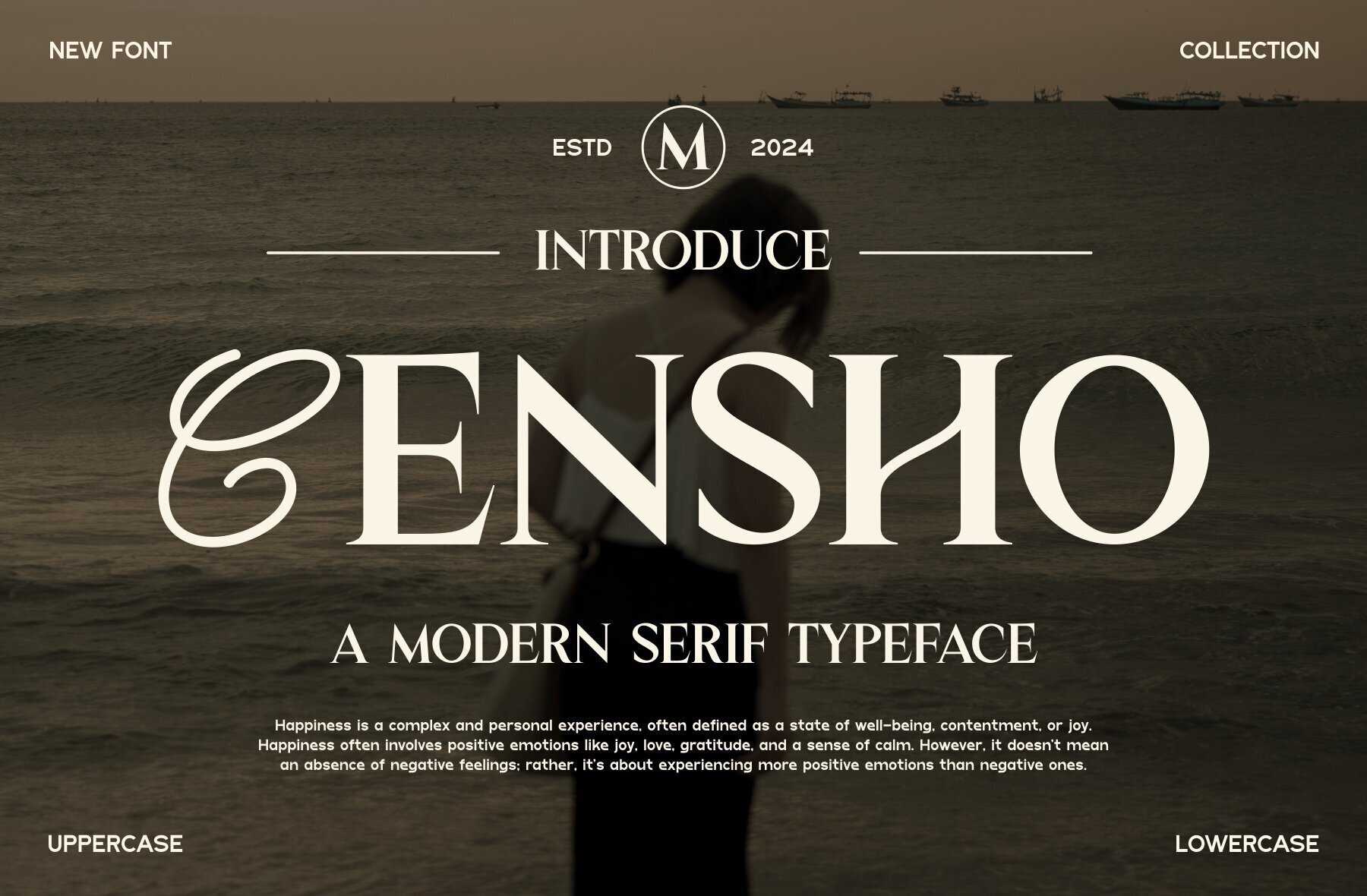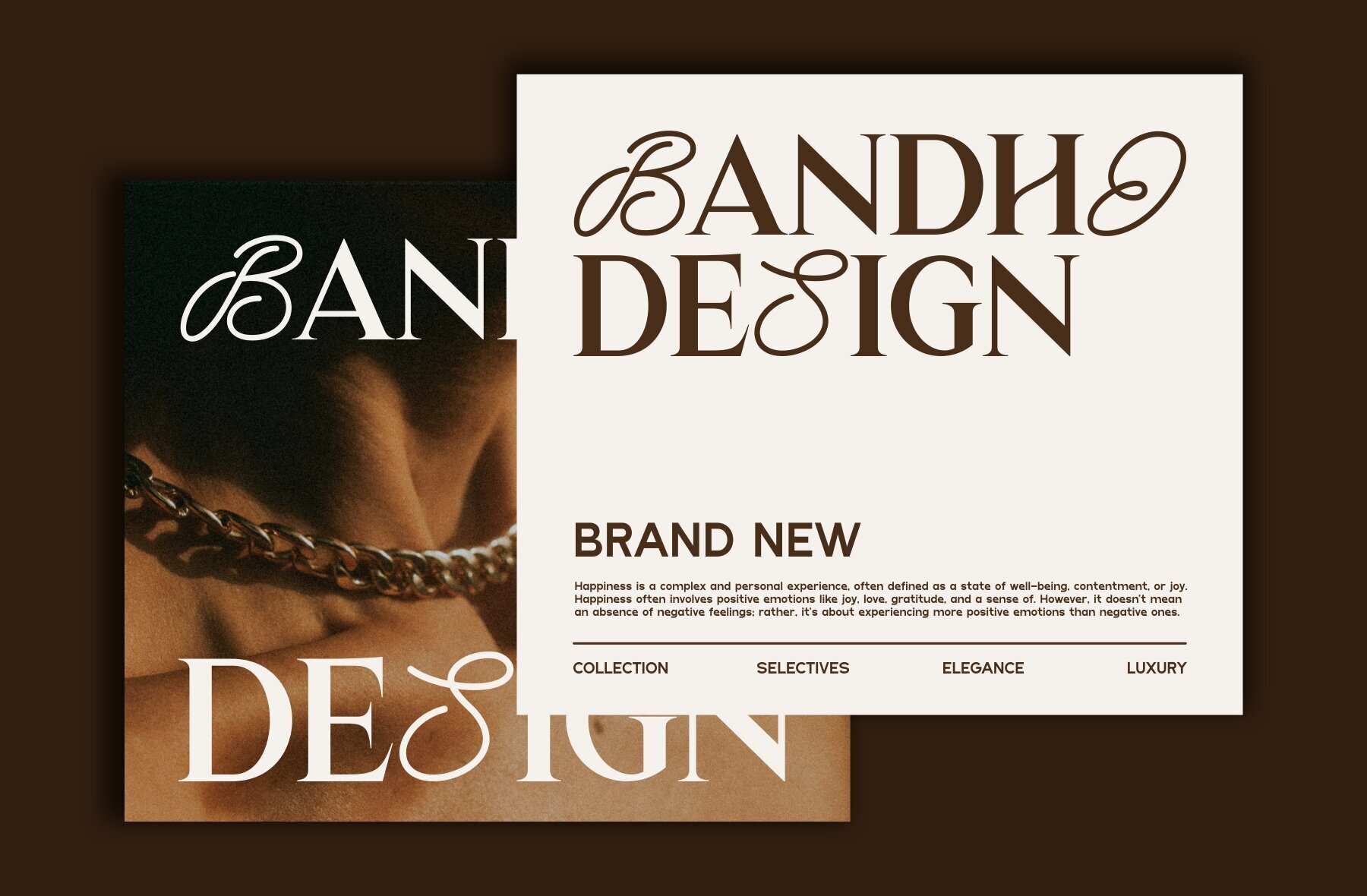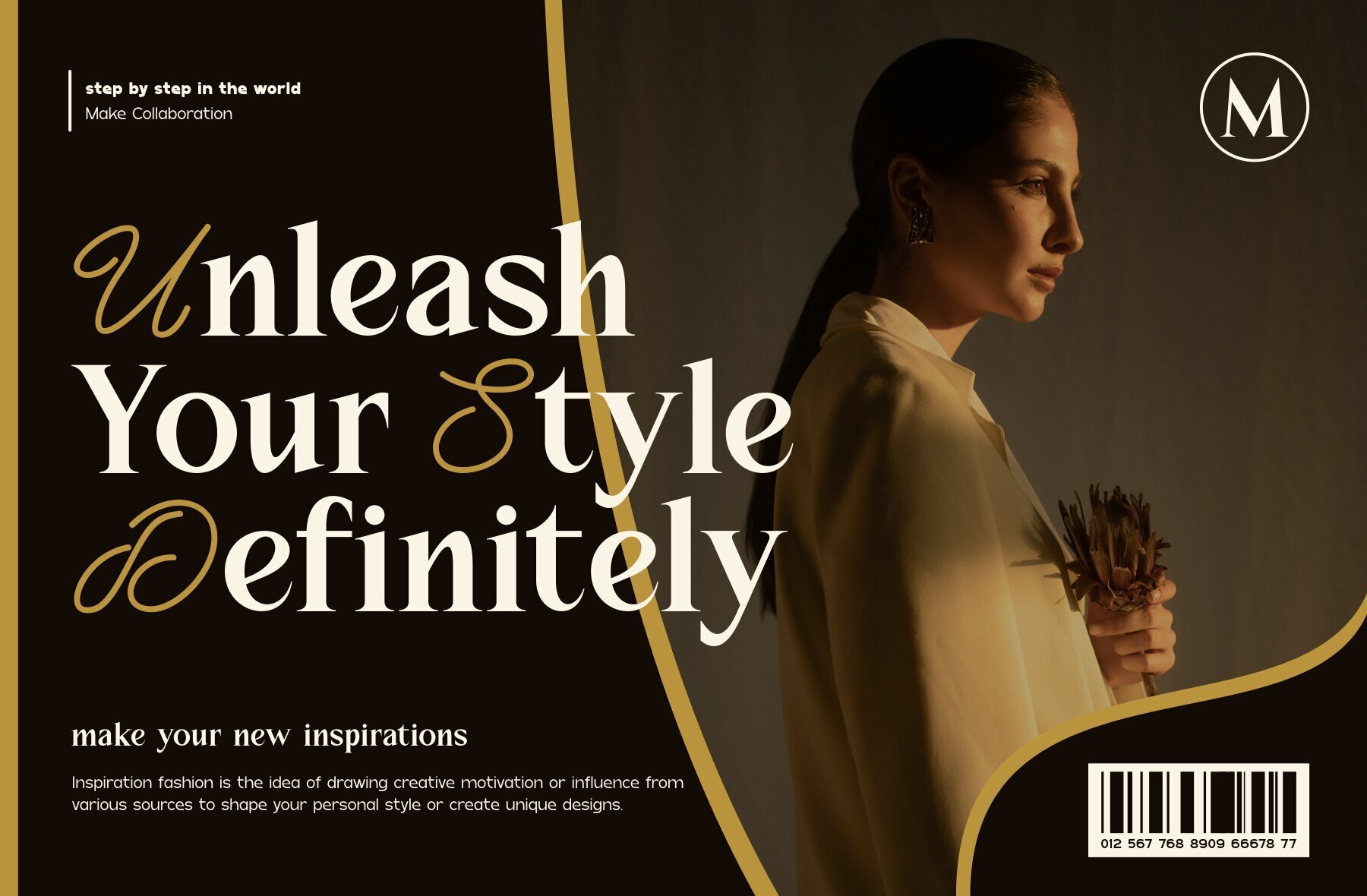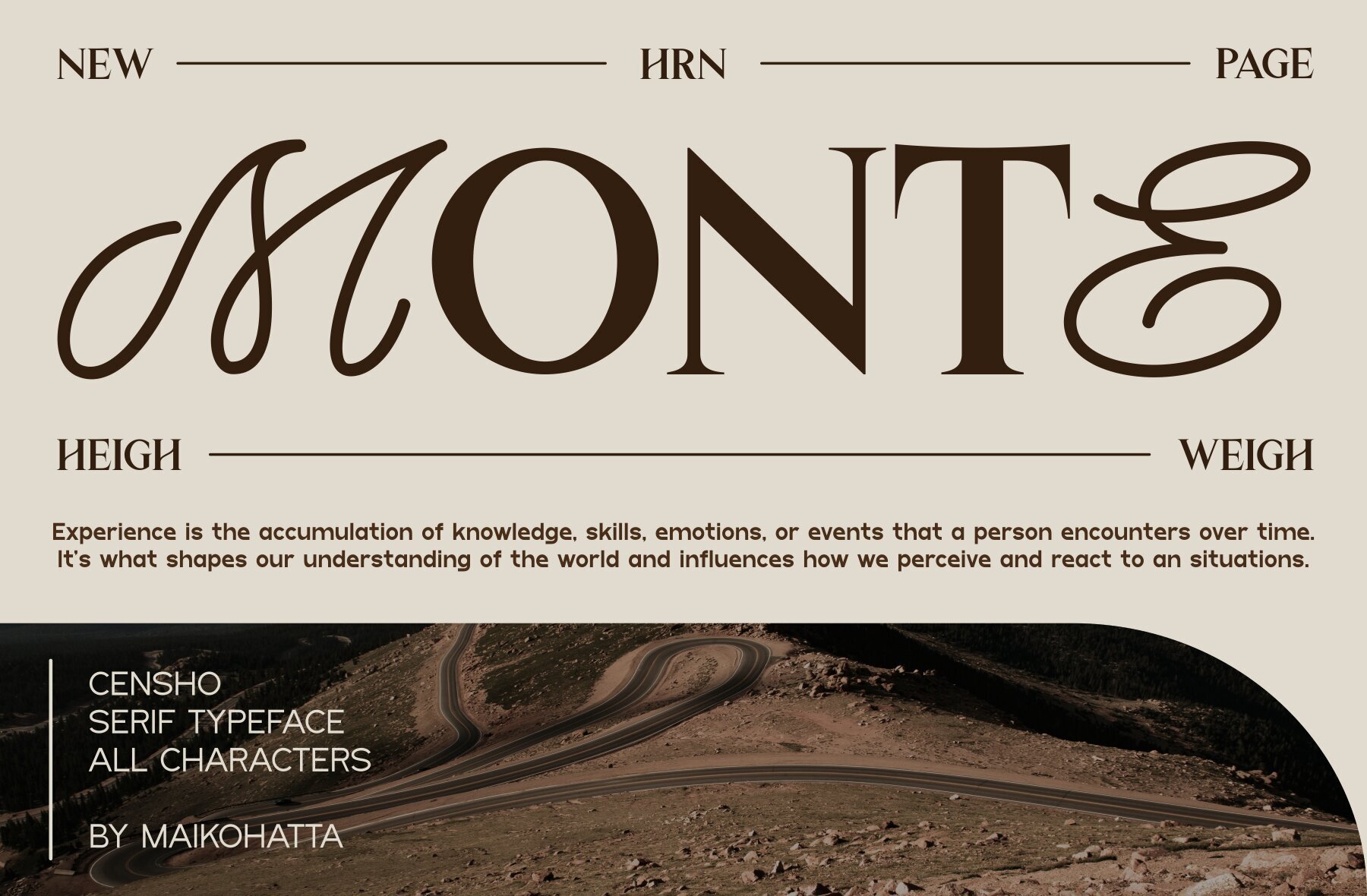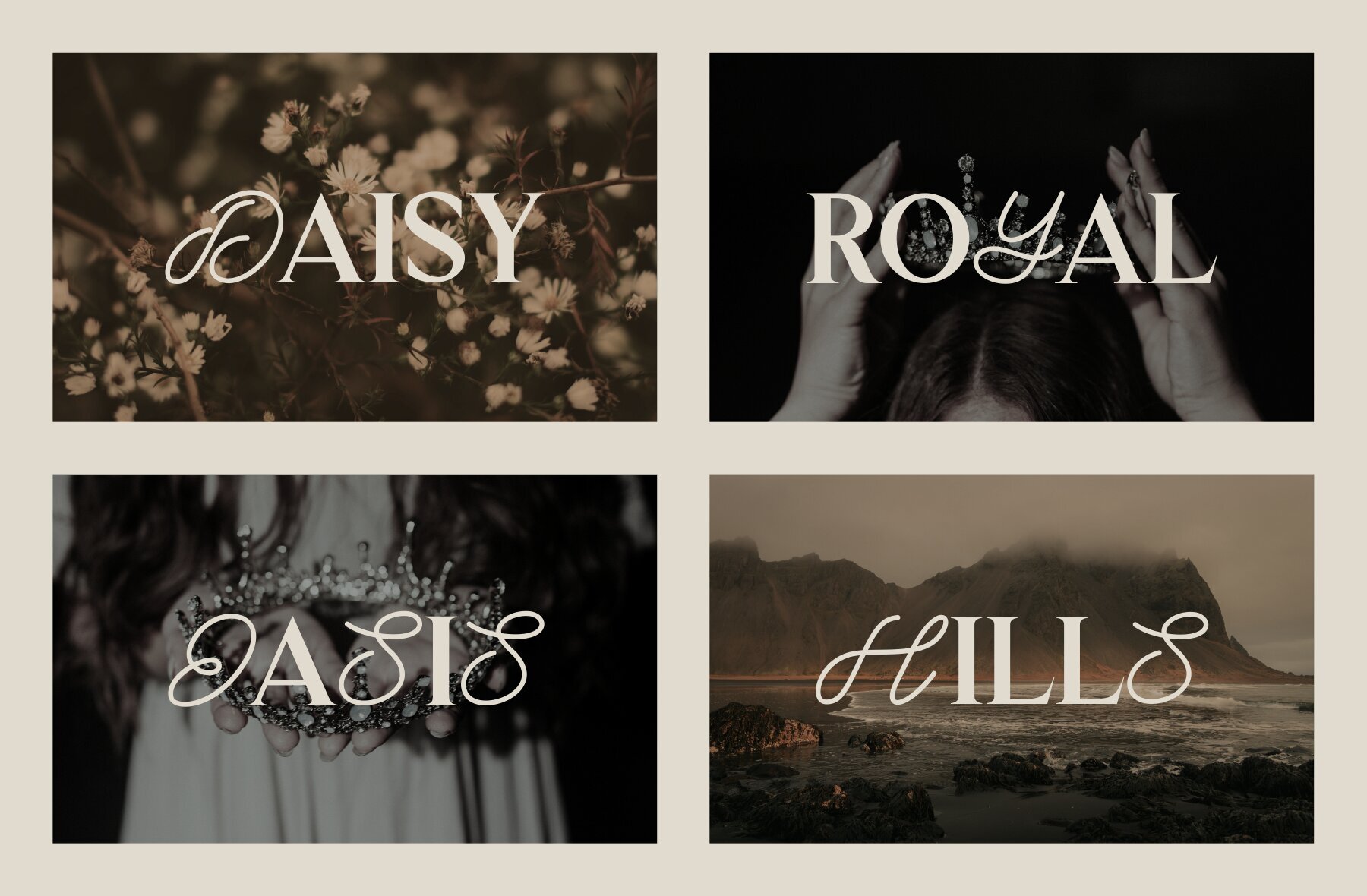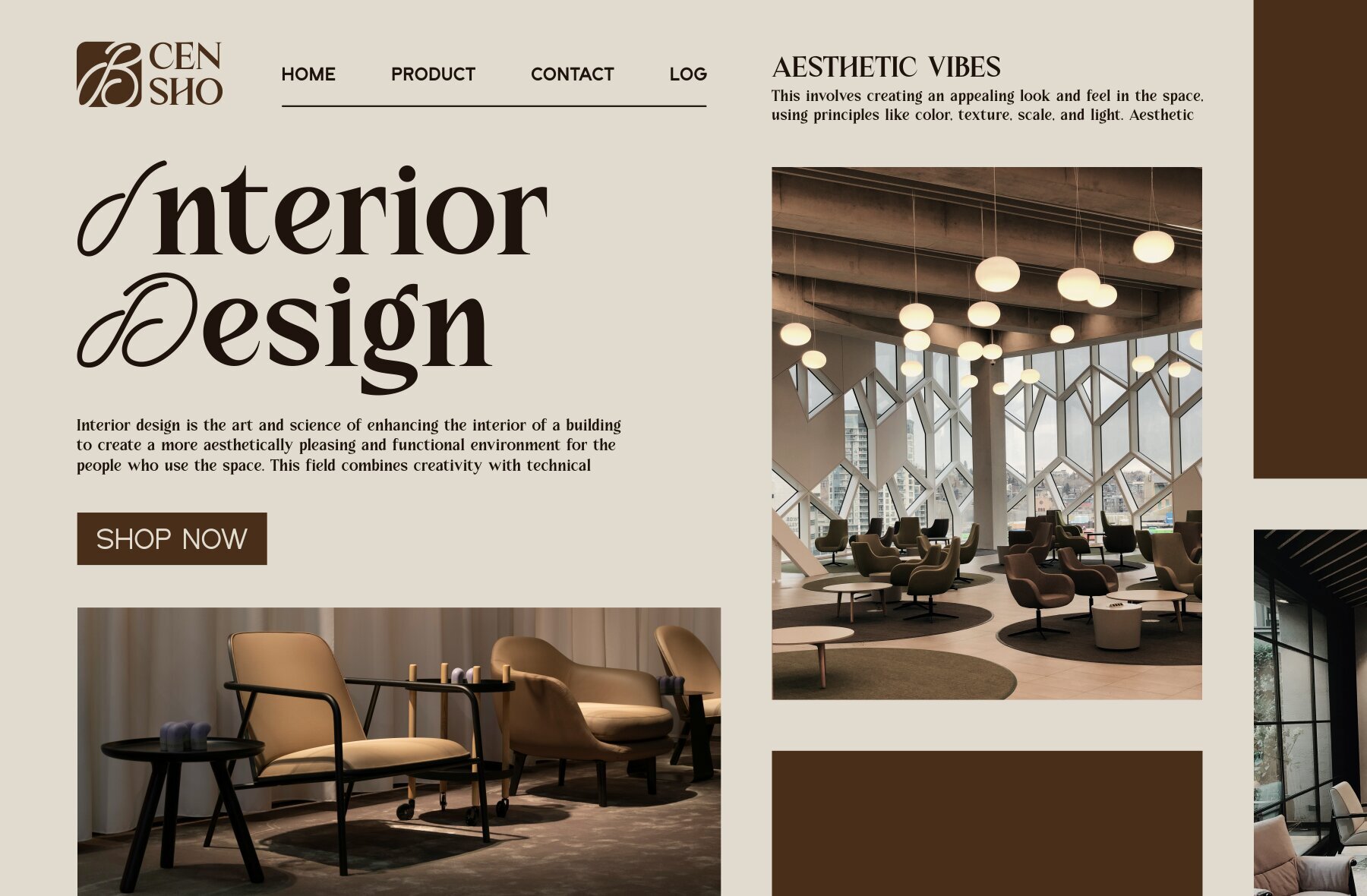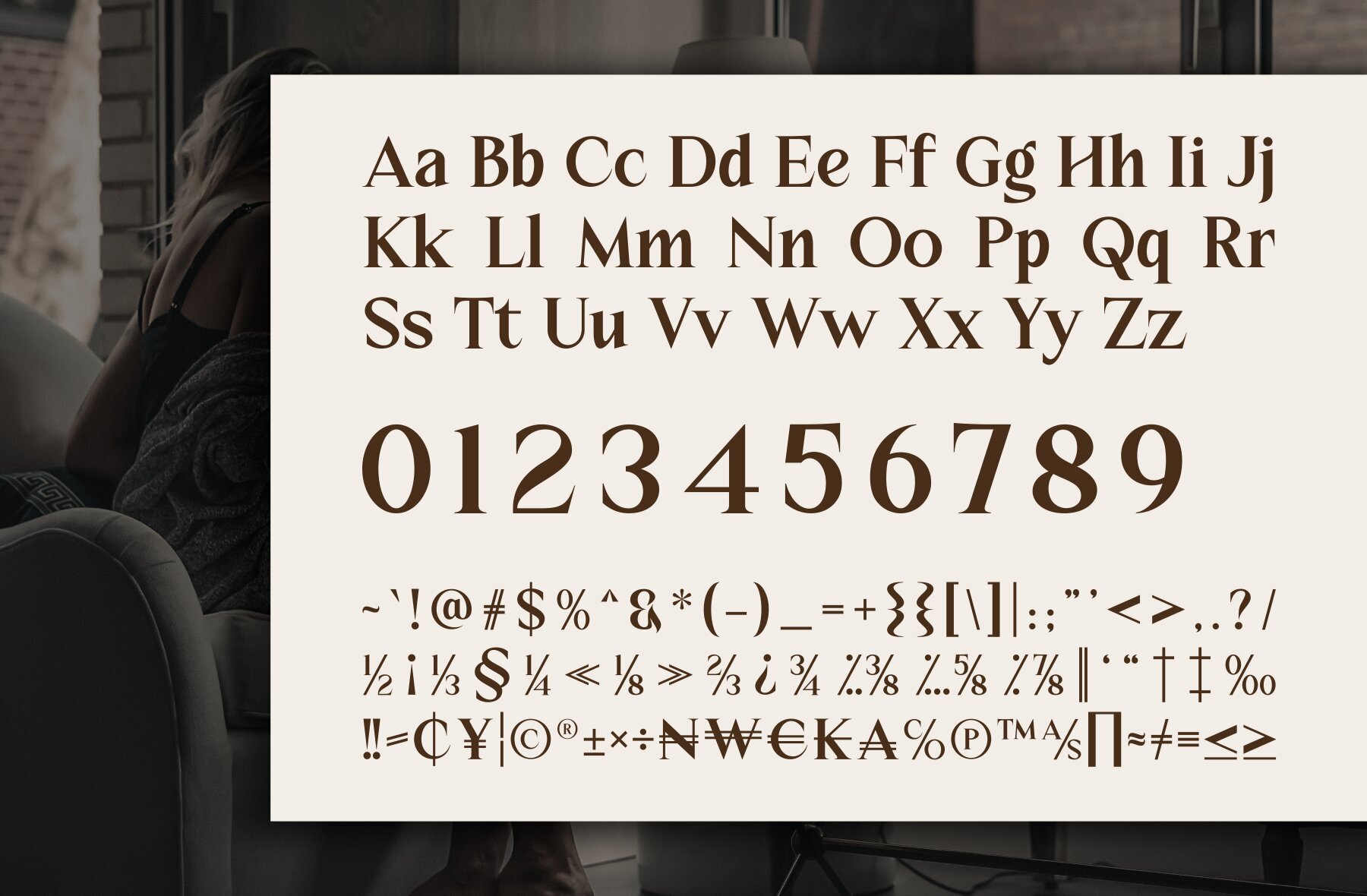
Censho Font
CENSHO
This serif font exudes a classic and elegant style, perfect for projects requiring a traditional yet sophisticated appearance. Its bold and contrasting elements make it an ideal choice for headlines, editorials, magazines, and publications. The refined and timeless aesthetic of this font lends itself well to professional branding, advertising, and formal design projects.